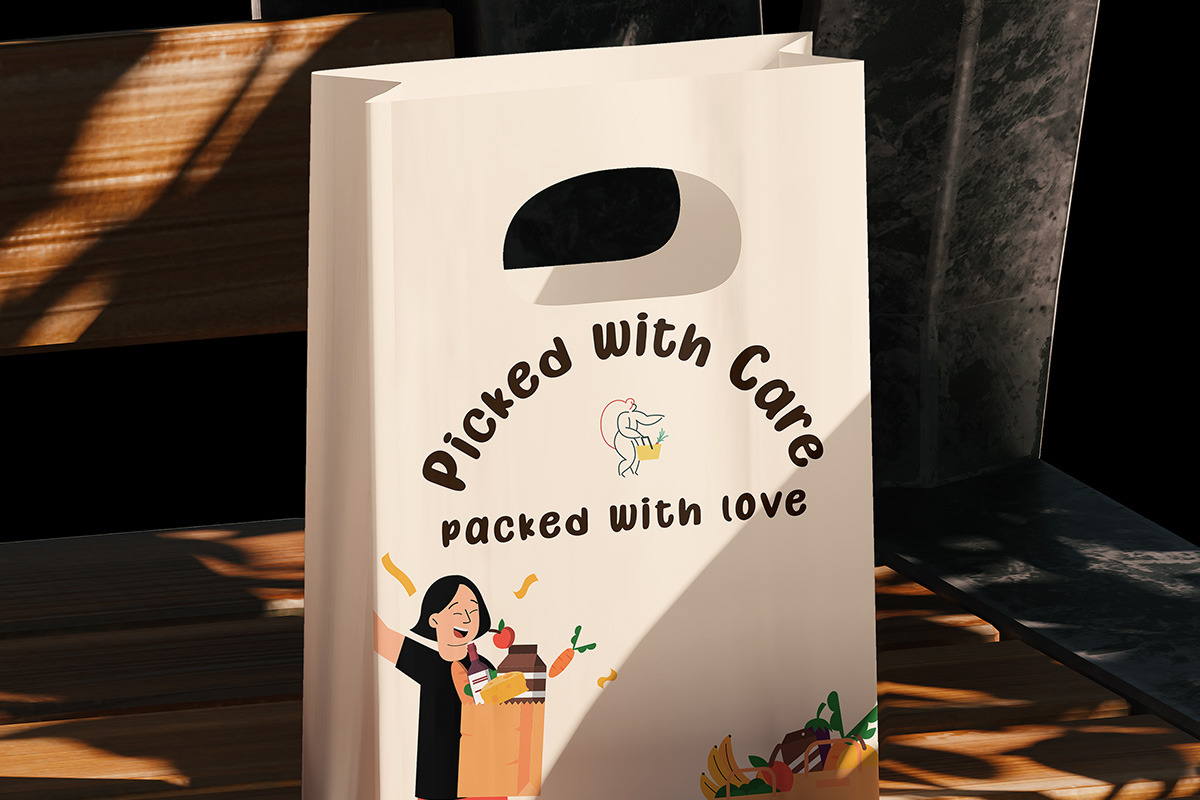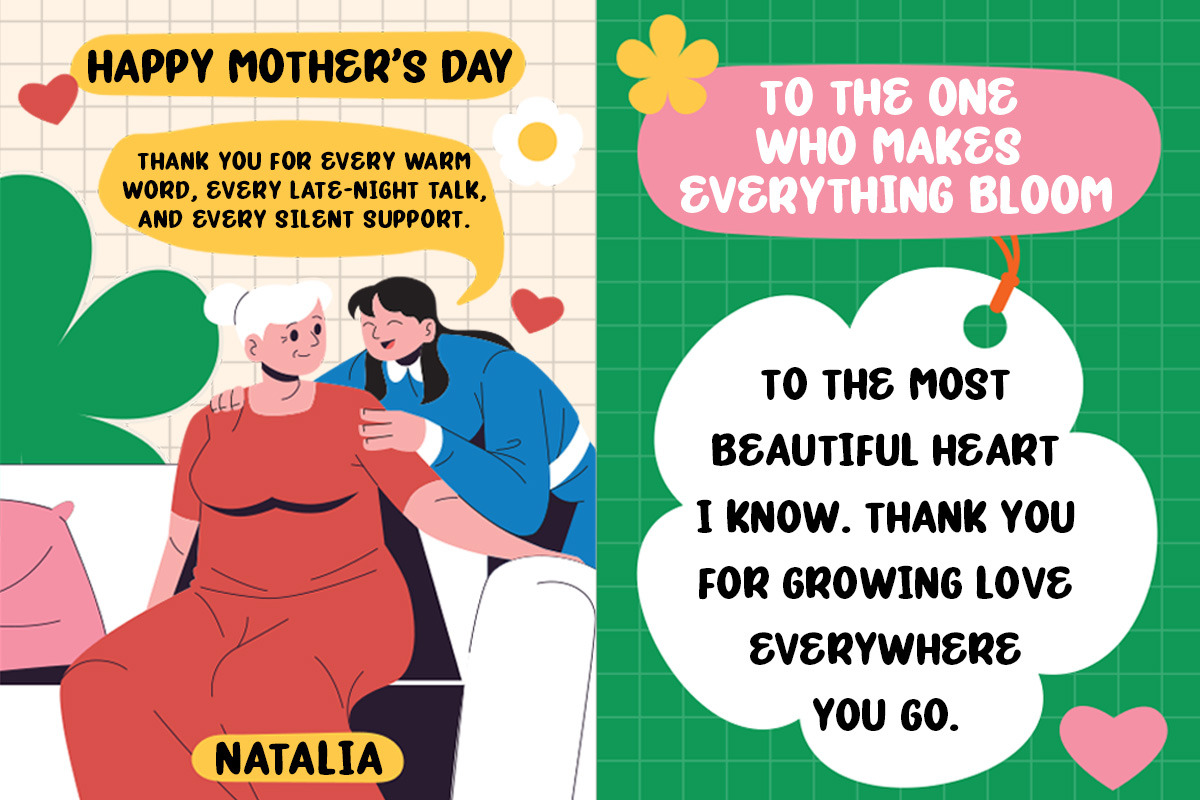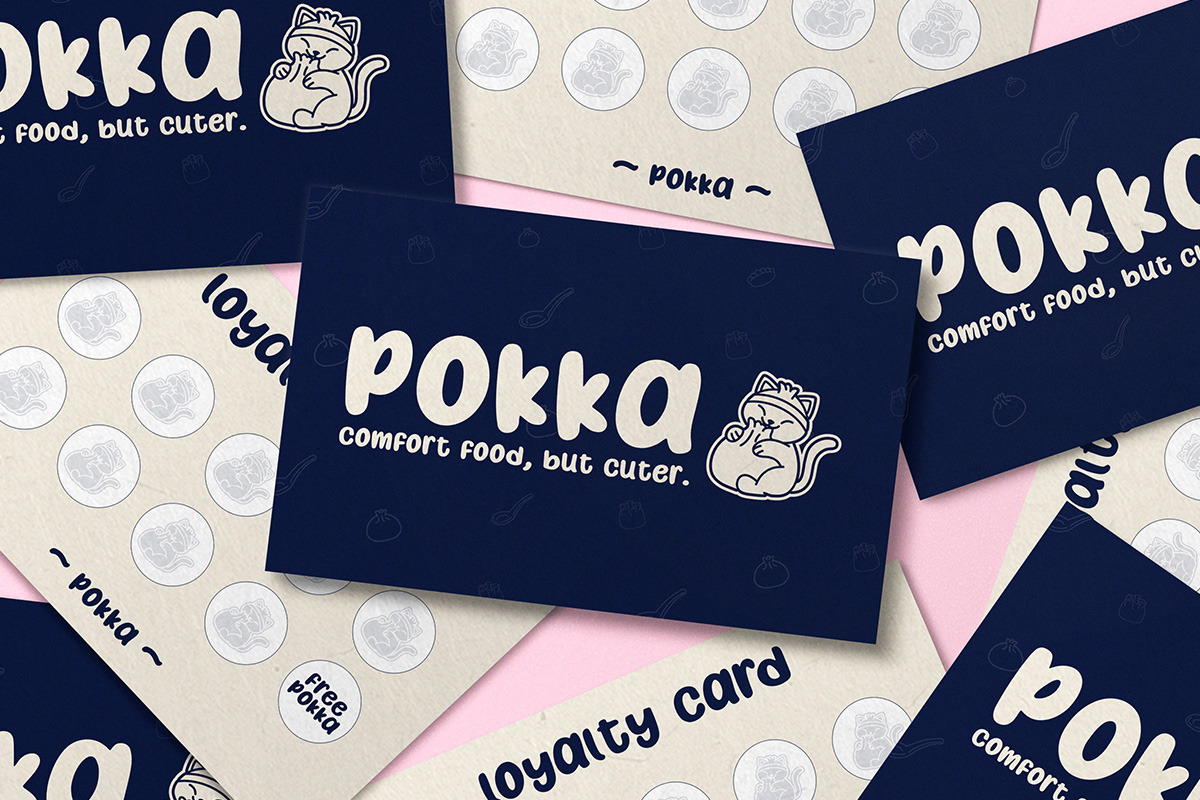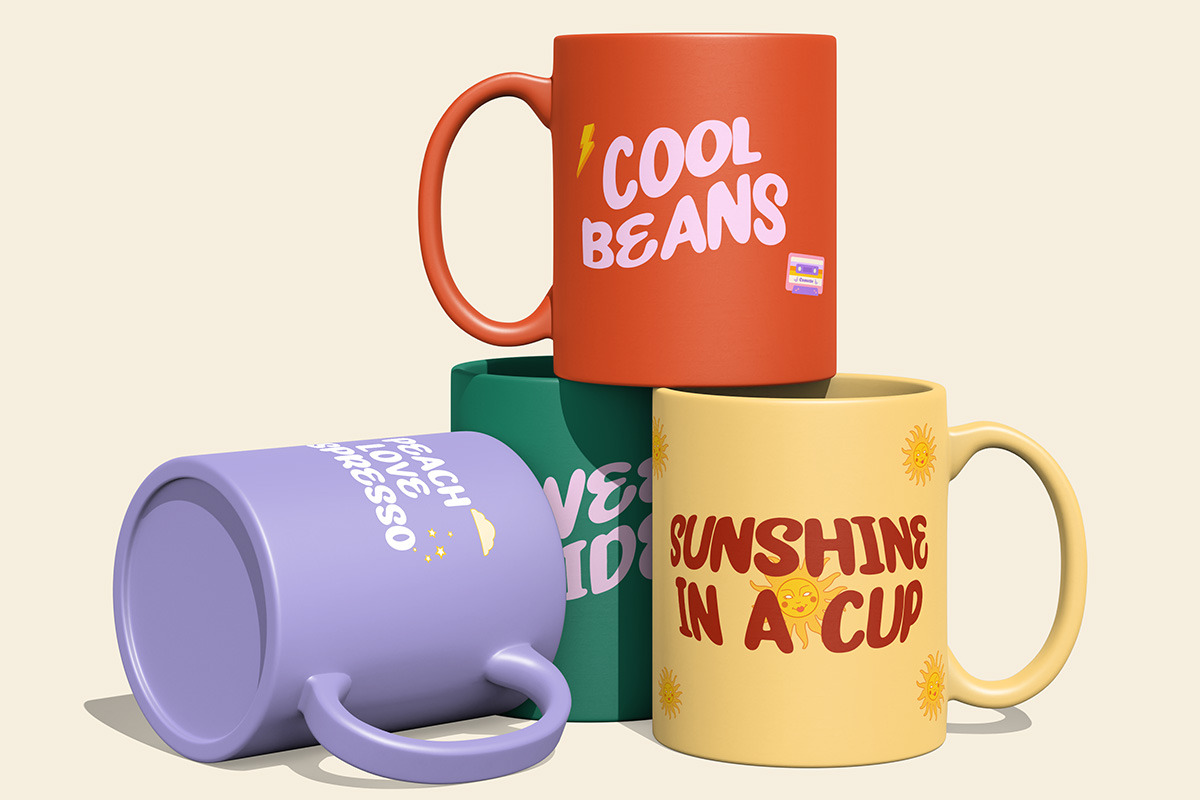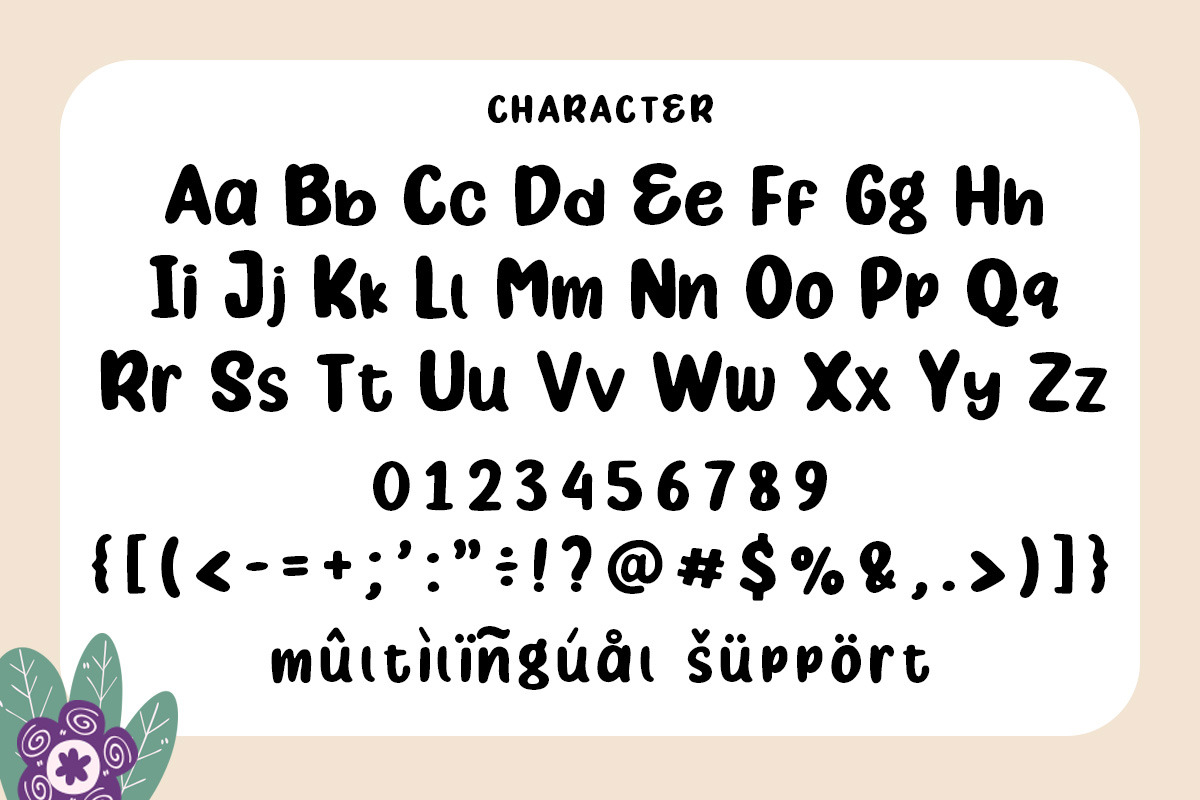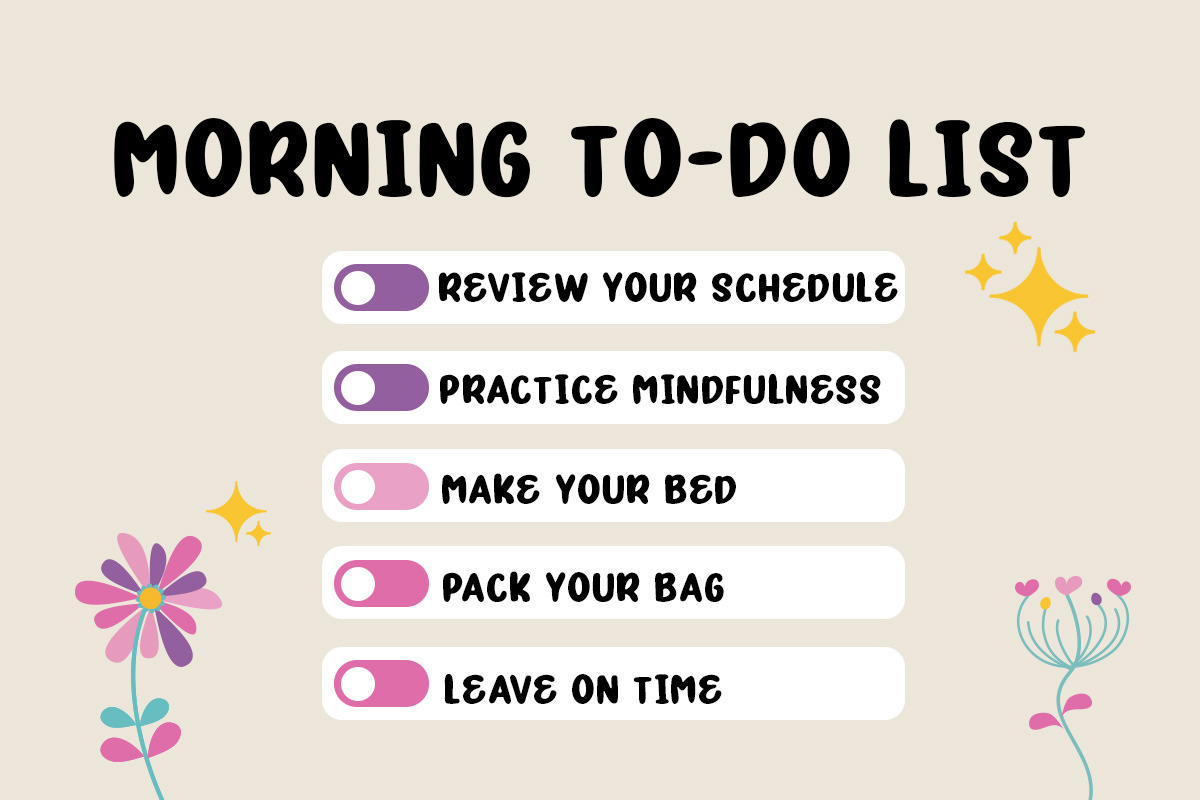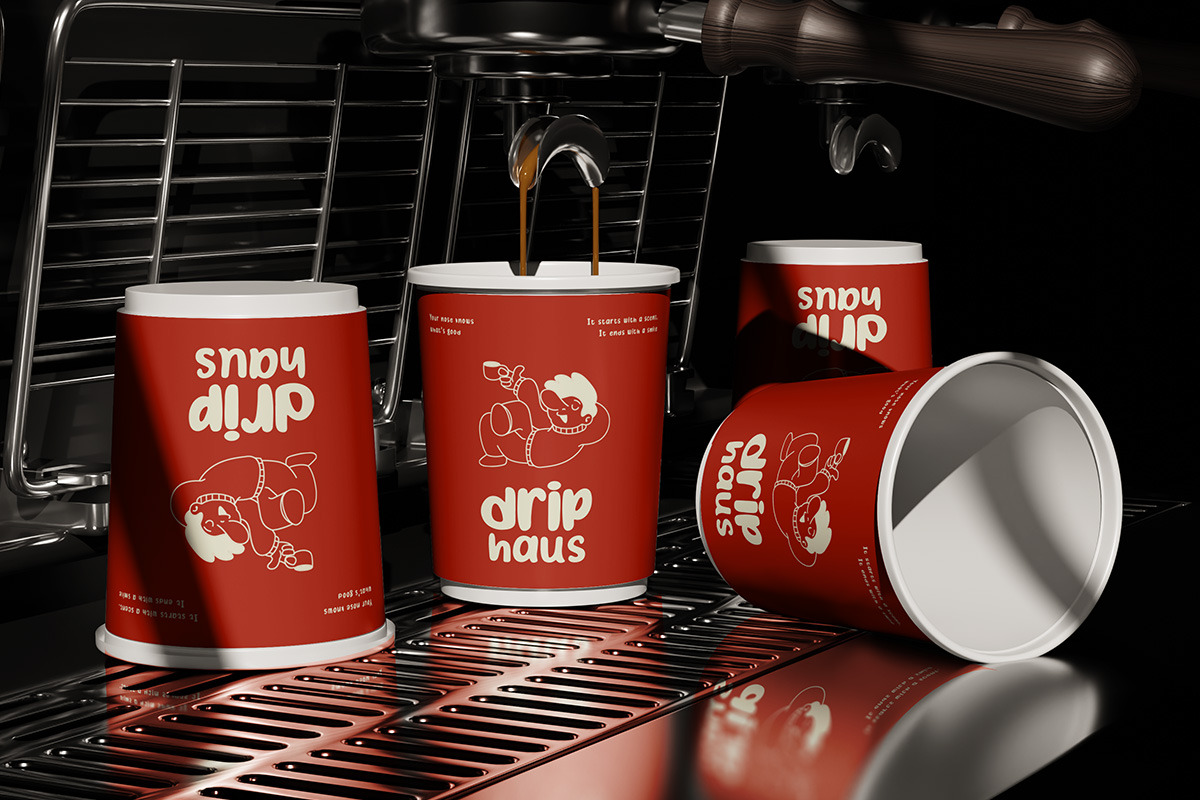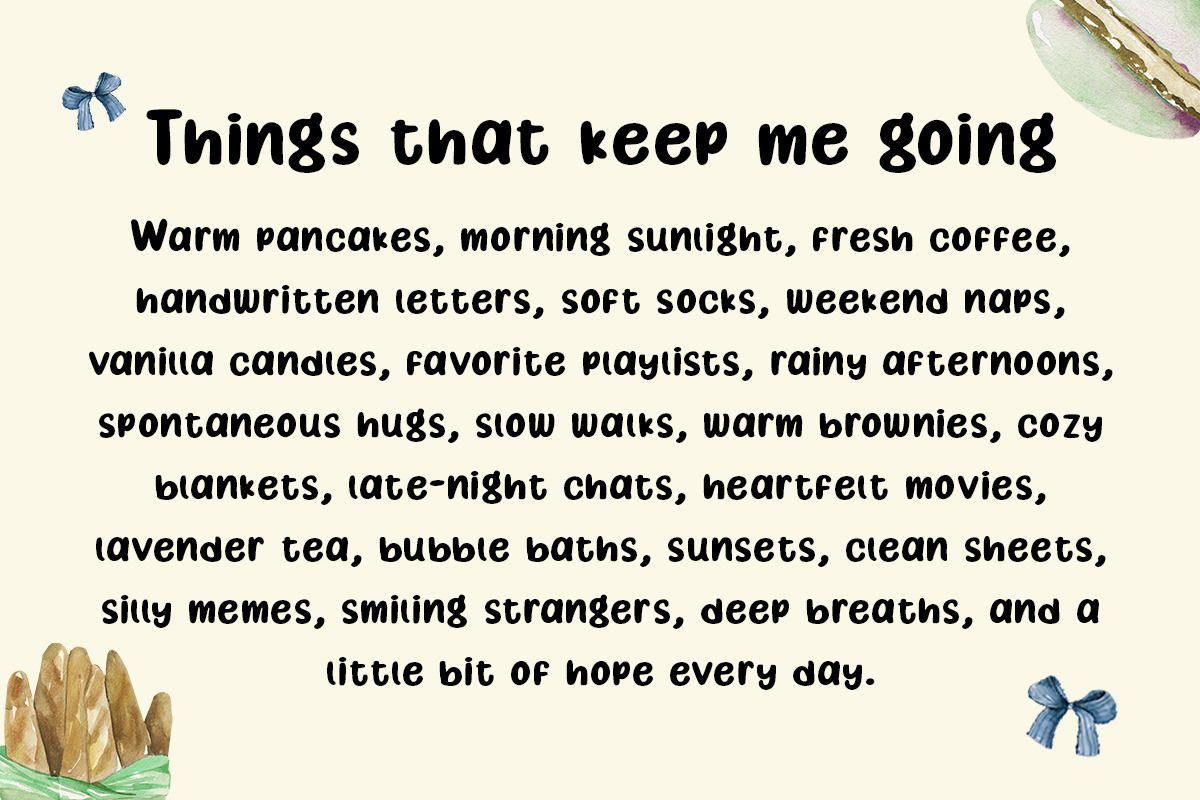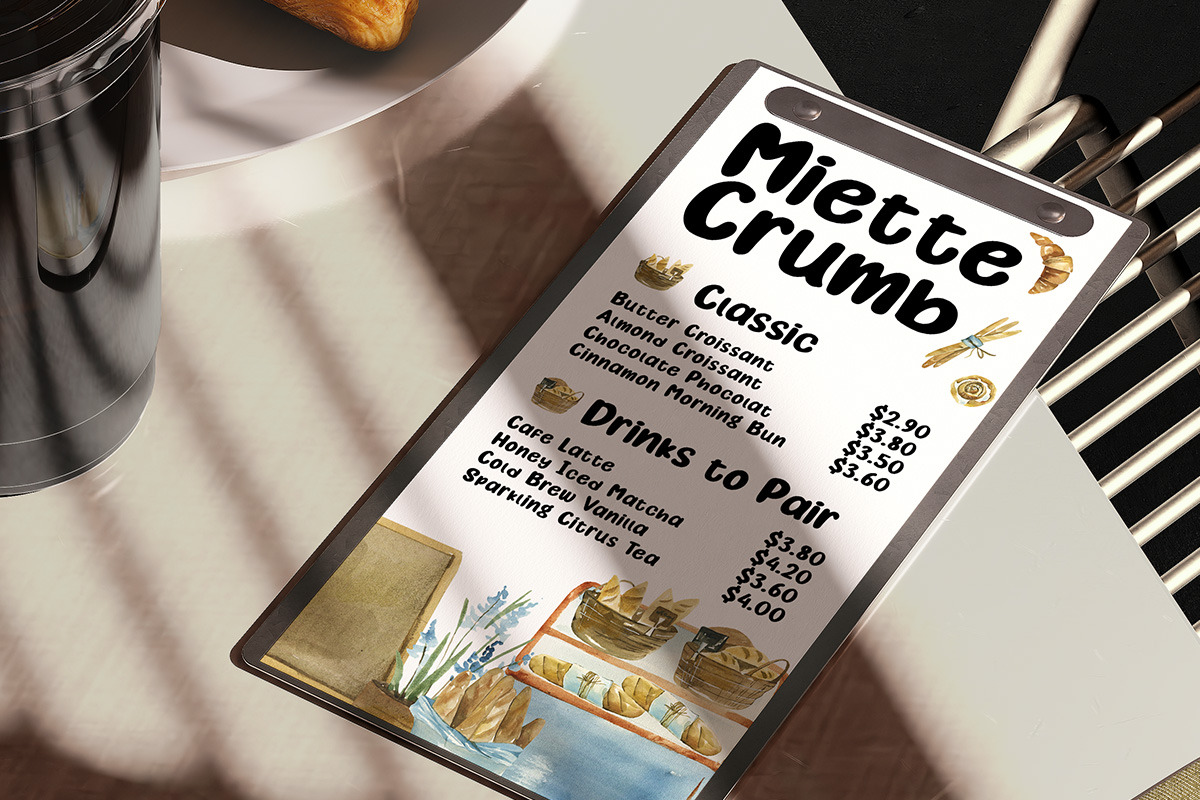
JumpZingera–Playful RetroPop Display
Jump Zingera – a playful and bold display font packed with personality, curves, and retro-pop vibes.
Designed with smooth rounded forms and lively bounce, Jump Zingera brings instant joy and energy to any project. It’s the perfect match for creative work that wants to feel friendly, nostalgic, and delightfully bold. Whether you're designing labels for candy, toy packaging, children’s books, or quirky brand identities, this font delivers a modern punch with a vintage twist.
The contrast between its vibrant structure and retro feel makes it ideal for both digital and print projects that need to grab attention while staying approachable. Jump Zingera is all about having fun with type, making your designs feel alive and expressive.
- Bold rounded strokes
- Retro-pop style
Why choose Jump Zingera? Because bold doesn’t have to be serious — it can be fun, joyful, and irresistibly bouncy.